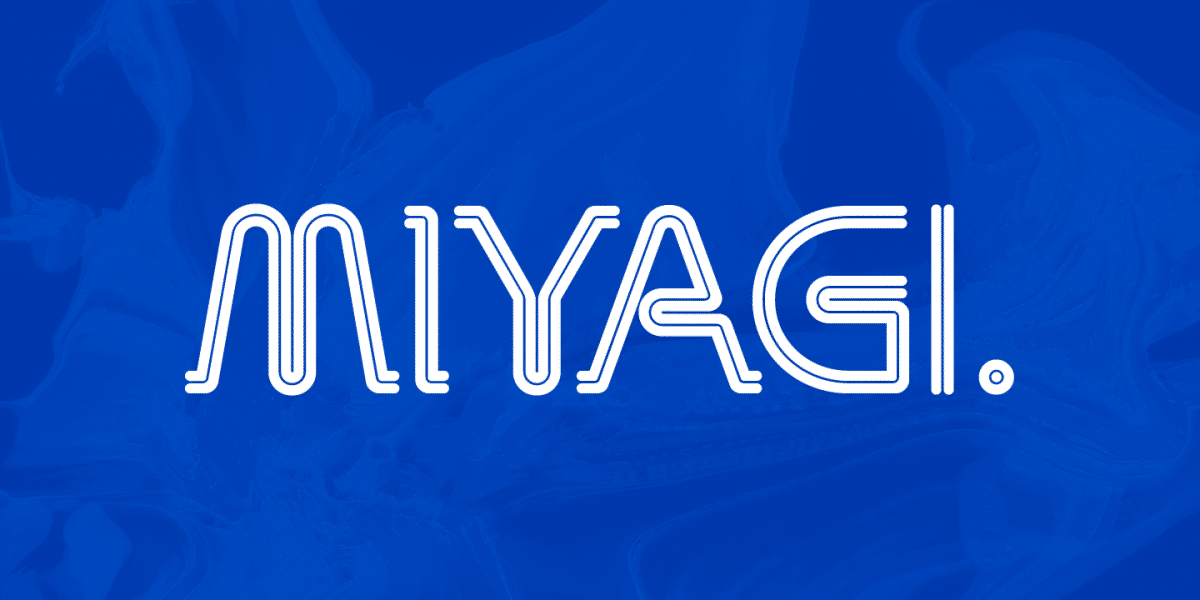
Miyagi brings the classic Yagi Link Double to the digital world, a modern form for a timeless typeface. Miyagi pays tribute to the decade it was created while pushing it into the boundaries of the future as well, a double image to match its double lines. Complex in design but easy to read, Miyagi embodies the stylistic ideas inherent in typeface design.